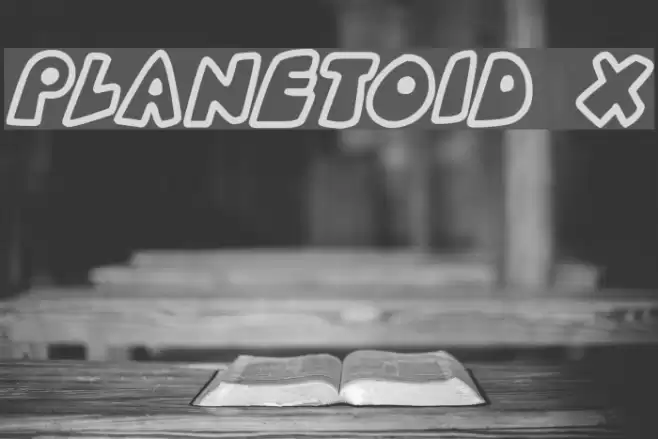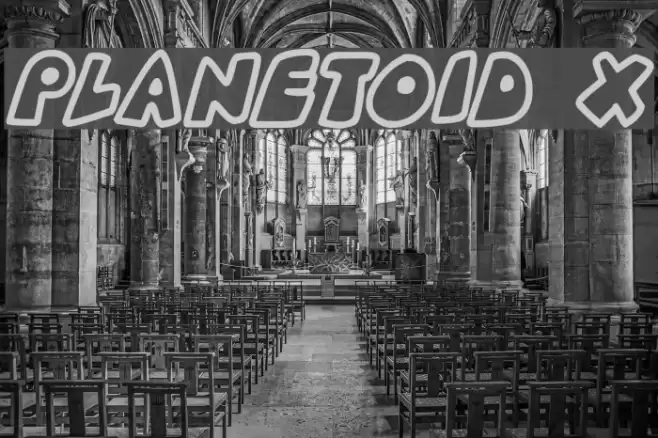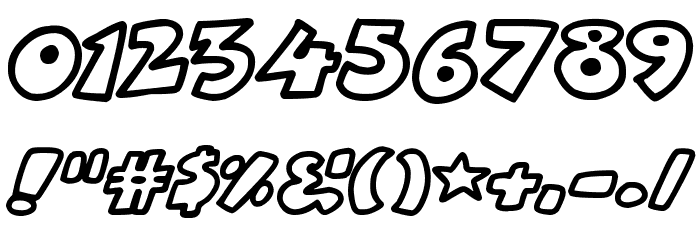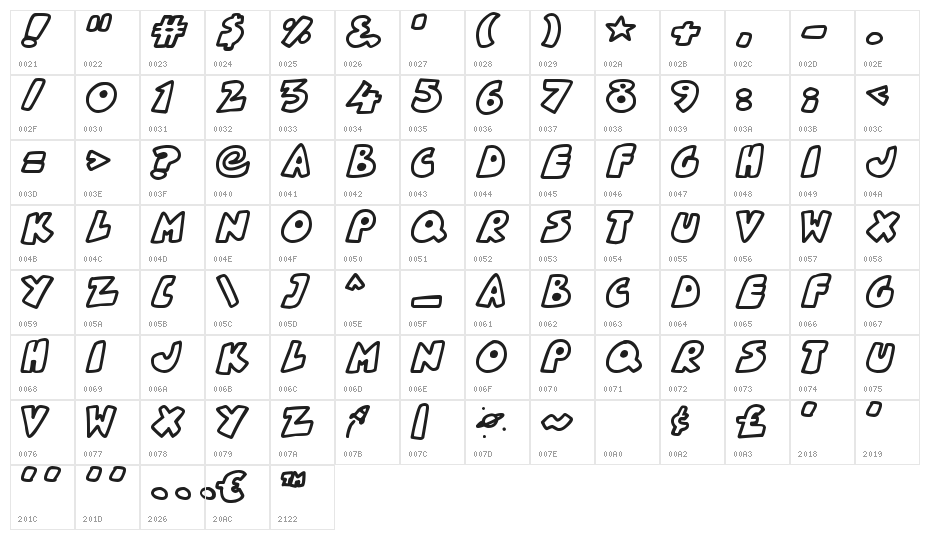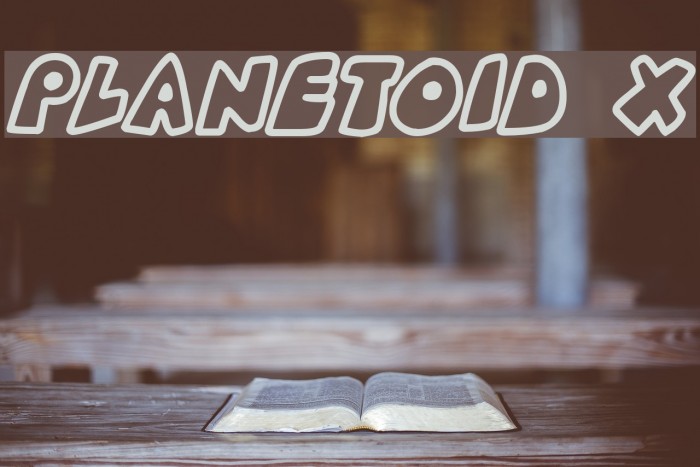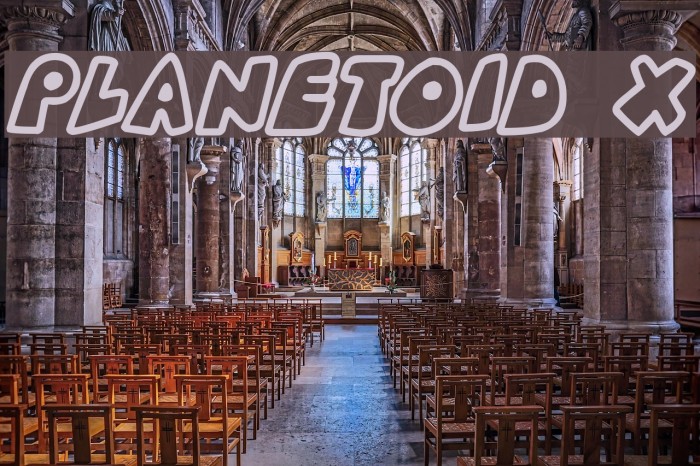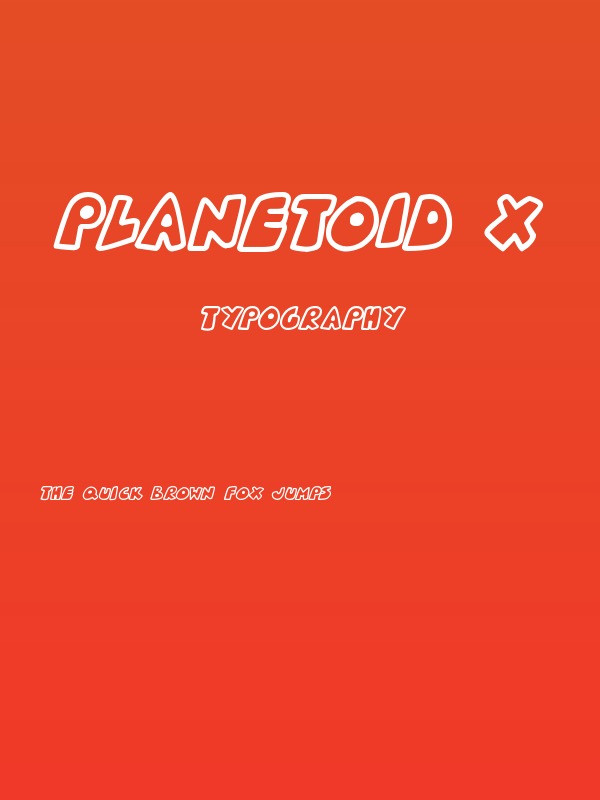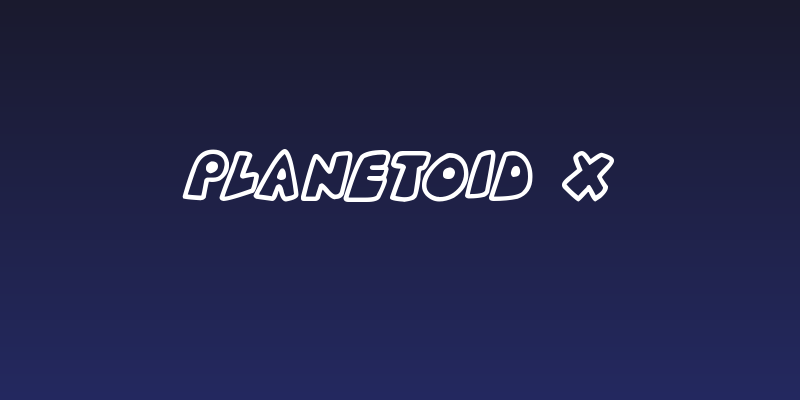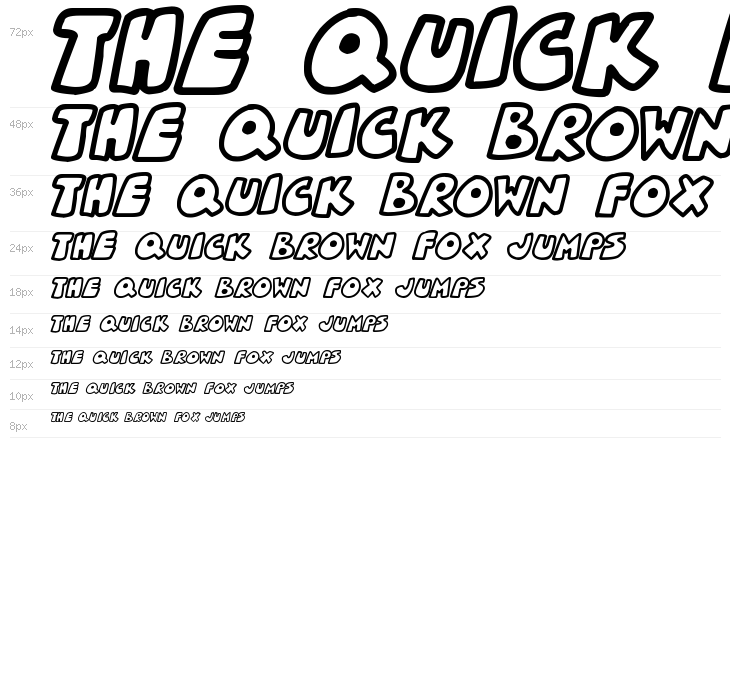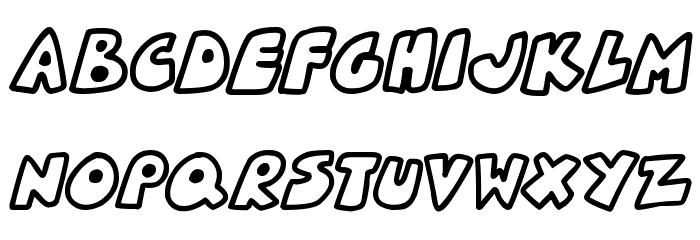
Planetoid X Font
Planetoid X Description
This playful and bold font features a unique, hand-drawn style with thick outlines and a slightly irregular shape, giving it a whimsical and cartoonish appearance. The characters are rounded and have a consistent weight, creating a cohesive look across both uppercase and lowercase letters. The numbers and special characters maintain the same playful aesthetic, making this font ideal for projects that require a fun and engaging visual element. Its distinctive style is perfect for capturing attention and adding a sense of creativity and energy to any design.
A playful, bold, hand-drawn font with thick outlines and a whimsical style from Uncategorized fonts.
- Proposed Projects: Ideal for children's books, comic strips, playful branding, and eye-catching posters.
- Overall Style: Playful, Cartoonish
- Use Case: Headlines, Posters, Branding